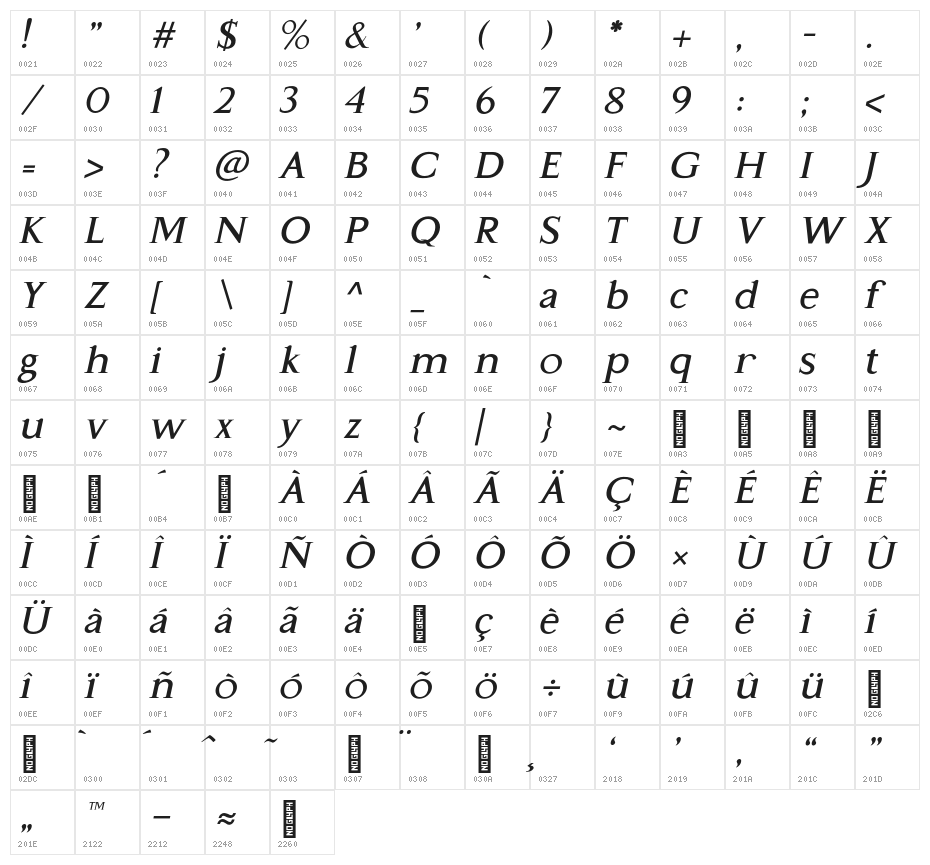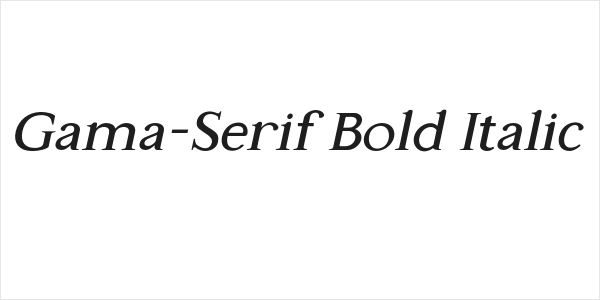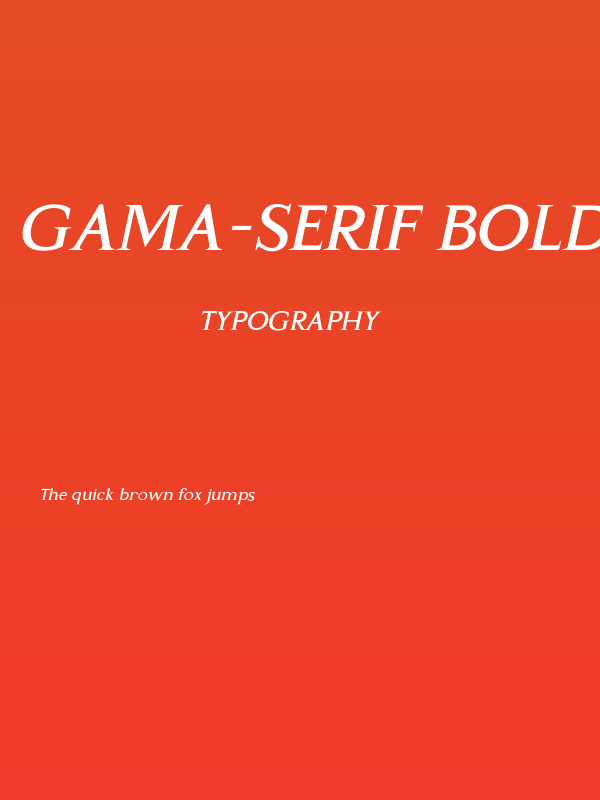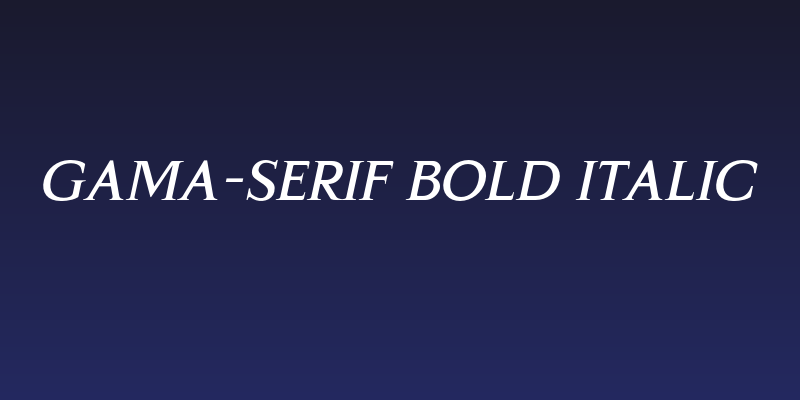
Gama-Serif Bold Italic Font
Gama-Serif Bold Italic Description
This font features a classic serif style with a bold and italicized presentation. The serifs are pronounced, adding a touch of elegance and tradition to the characters. The italic angle is moderate, providing a sense of movement and fluidity. The bold weight ensures that the characters stand out, making them suitable for attention-grabbing headlines. The uppercase letters are well-proportioned, while the lowercase letters maintain a consistent style with slightly rounded edges. The numerals are clear and distinct, with a uniform height that aligns well with the uppercase letters. Special characters are designed to match the overall aesthetic, ensuring a cohesive look across all text elements.
| Proposed Projects | Ideal for book covers, editorial headlines, formal invitations, and branding materials that require a touch of sophistication. |